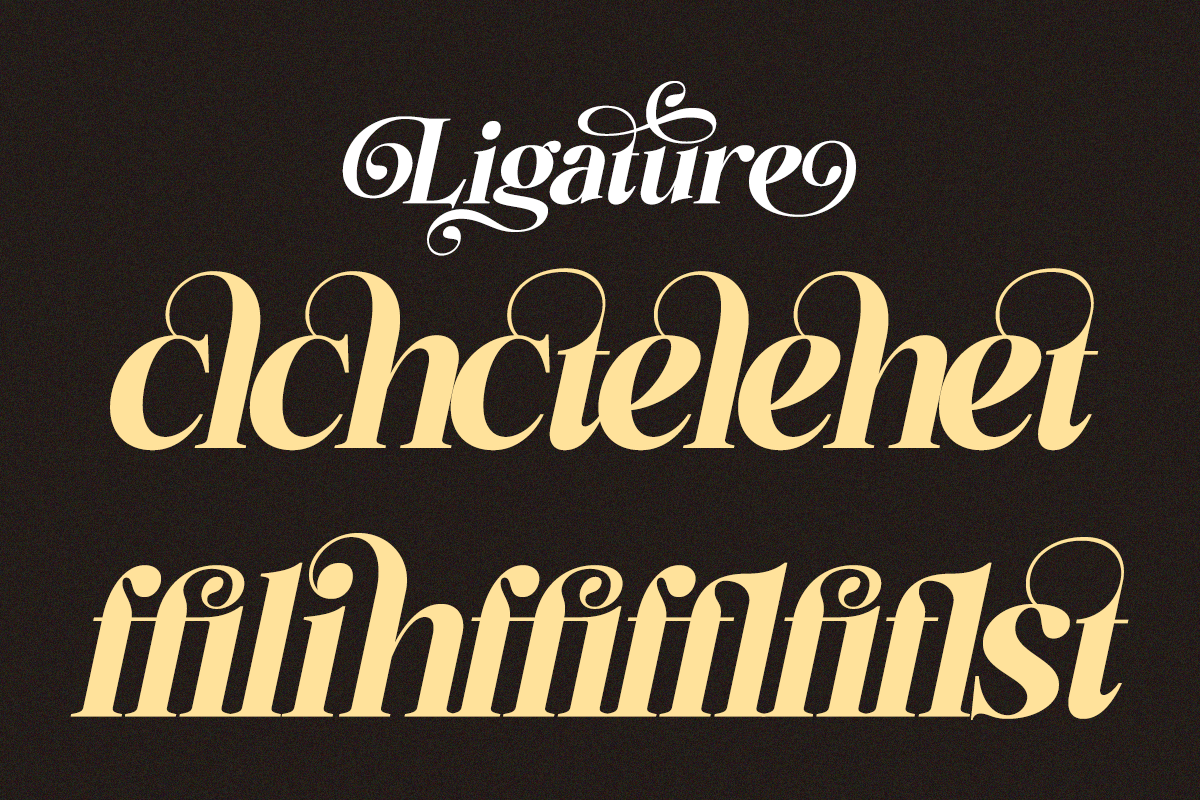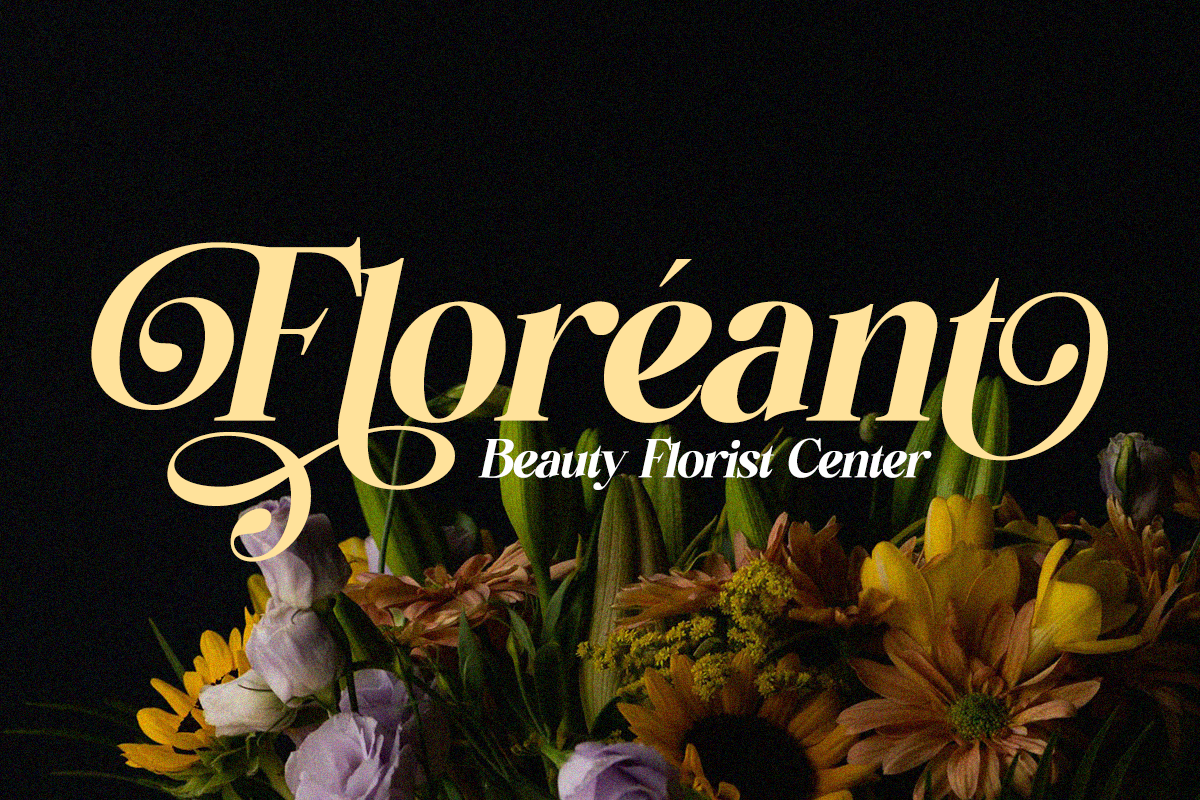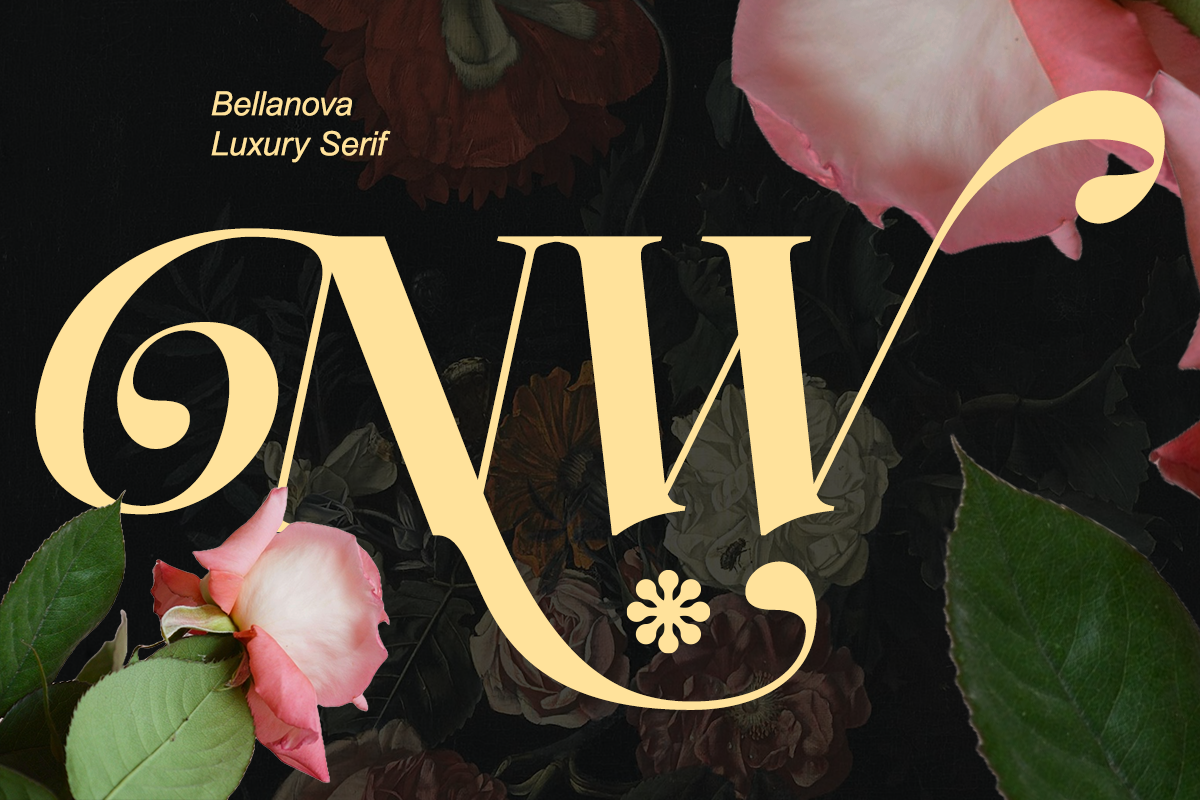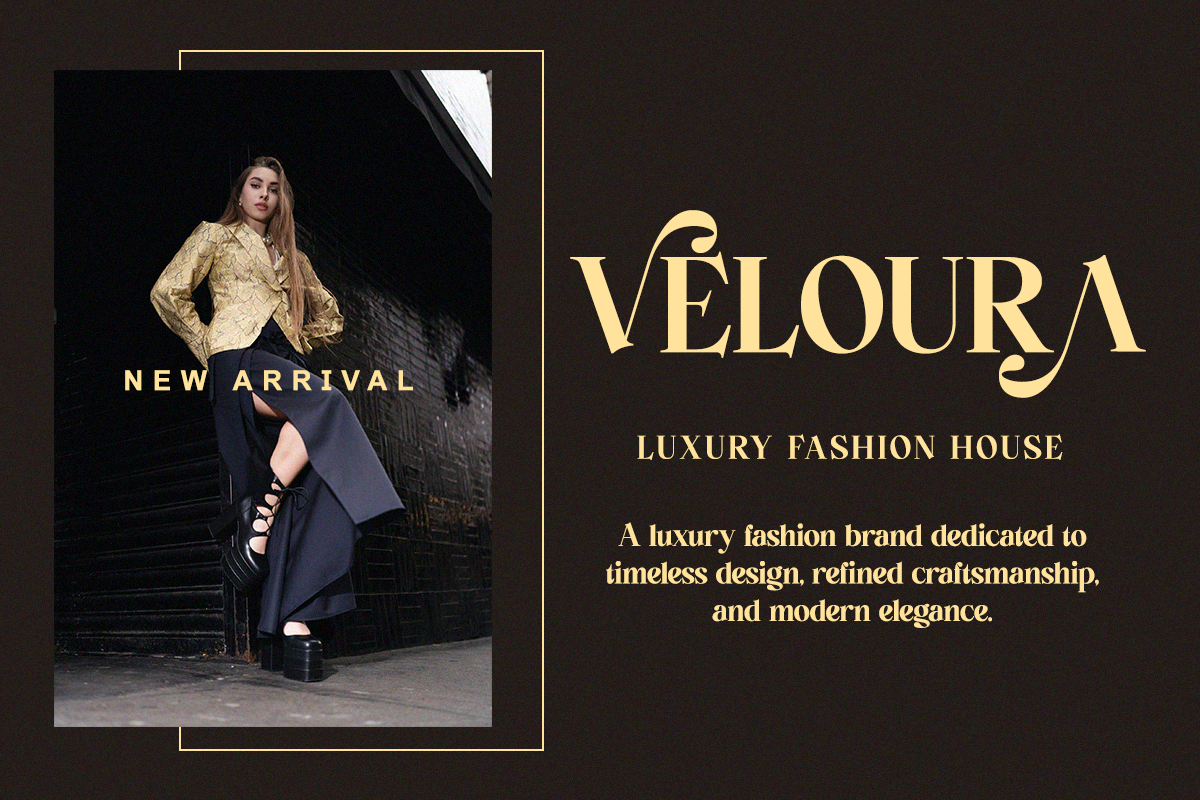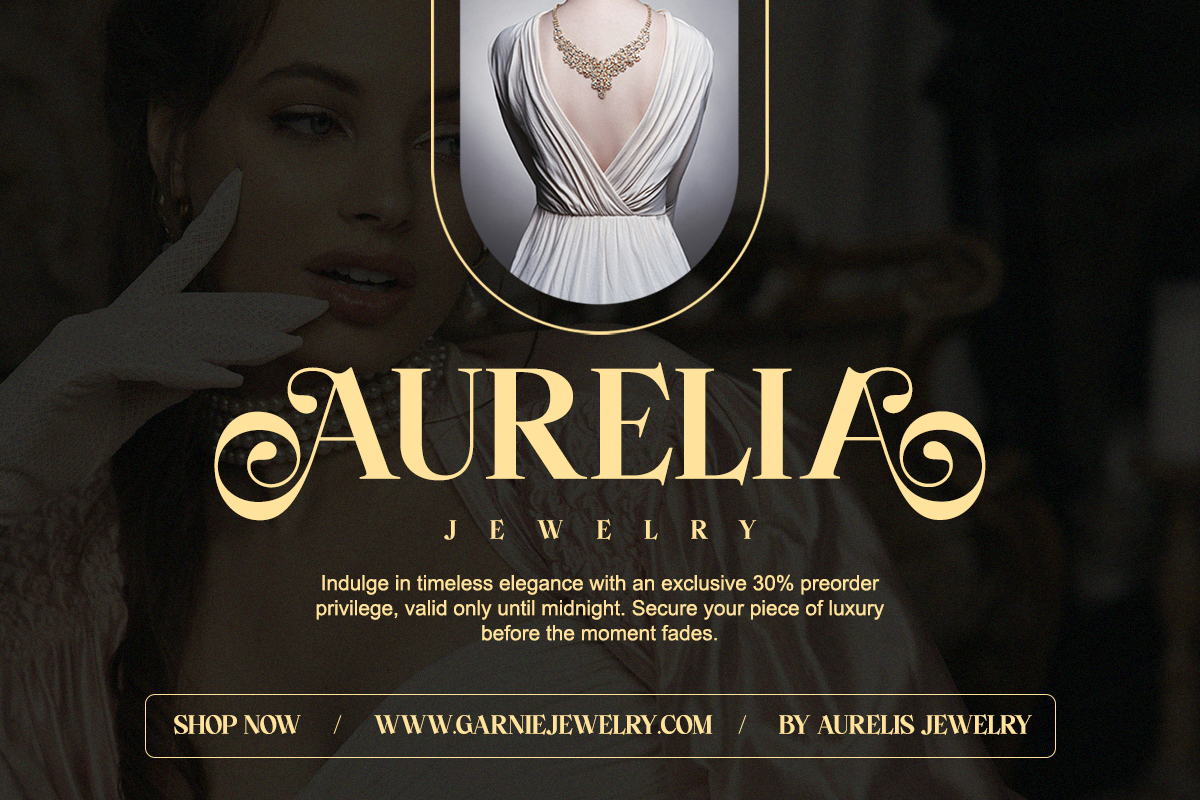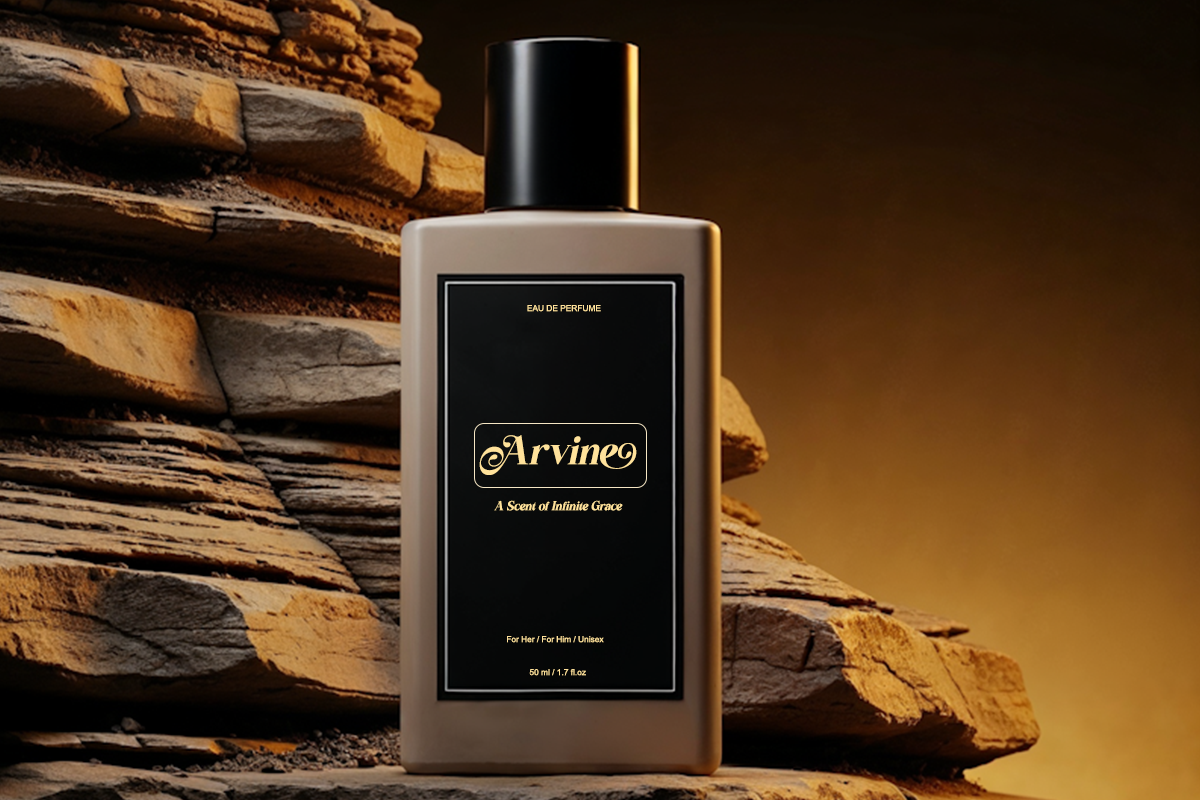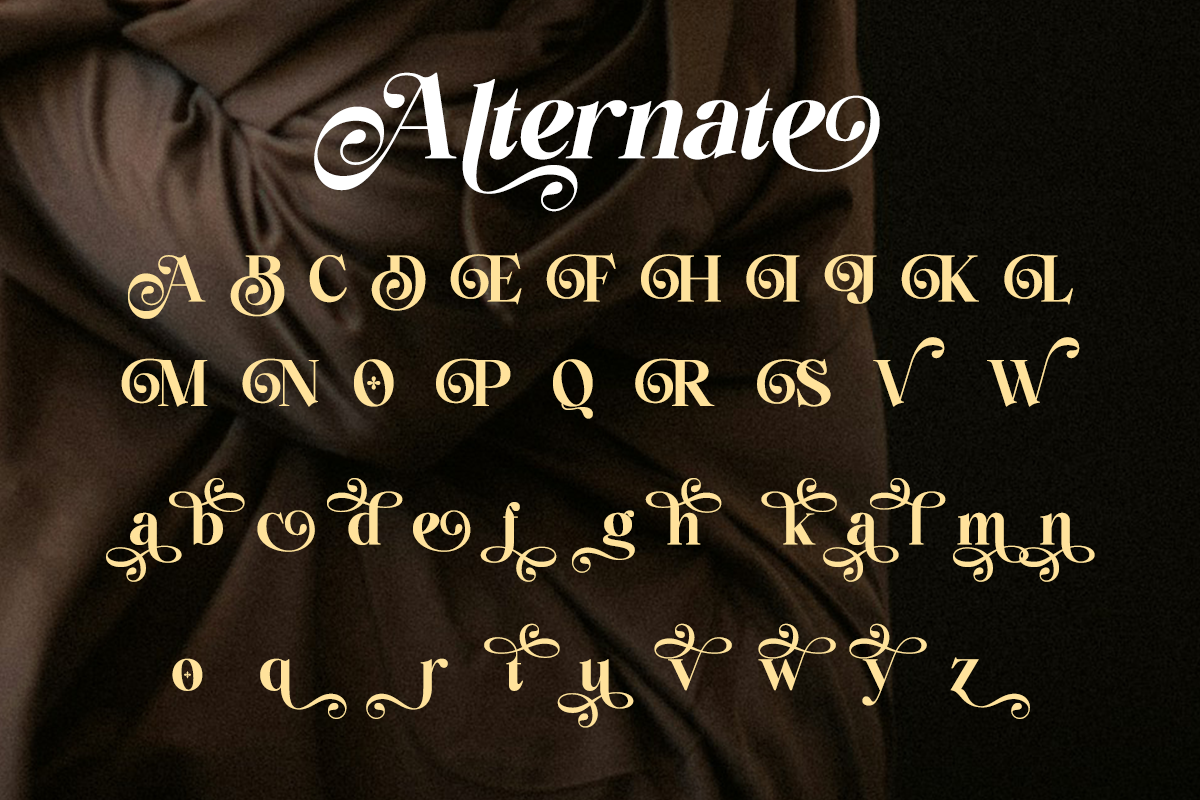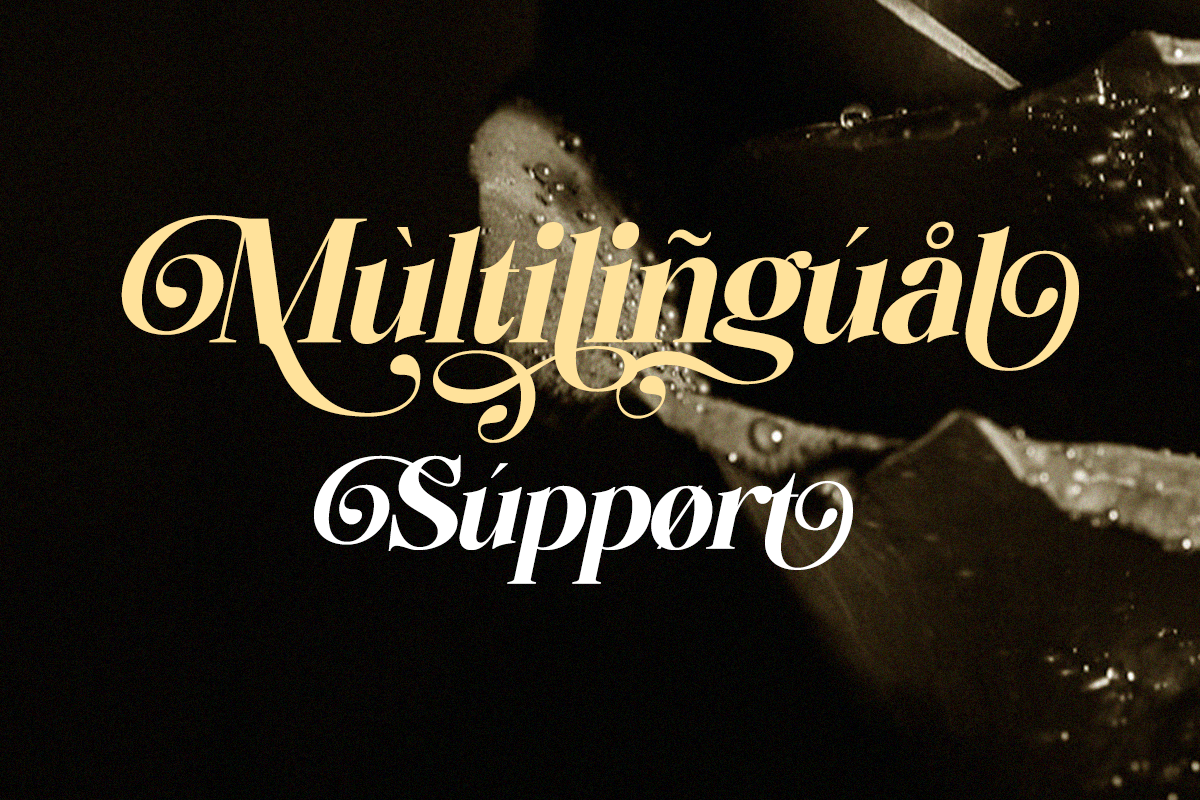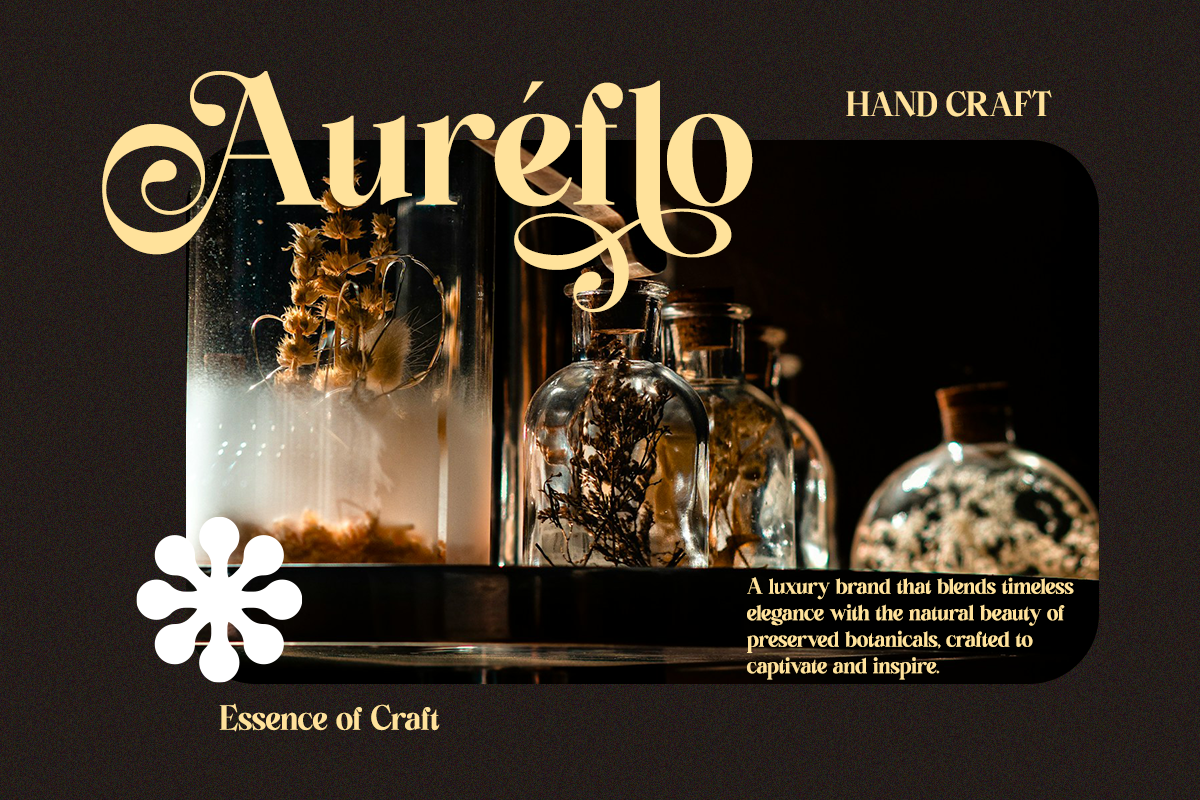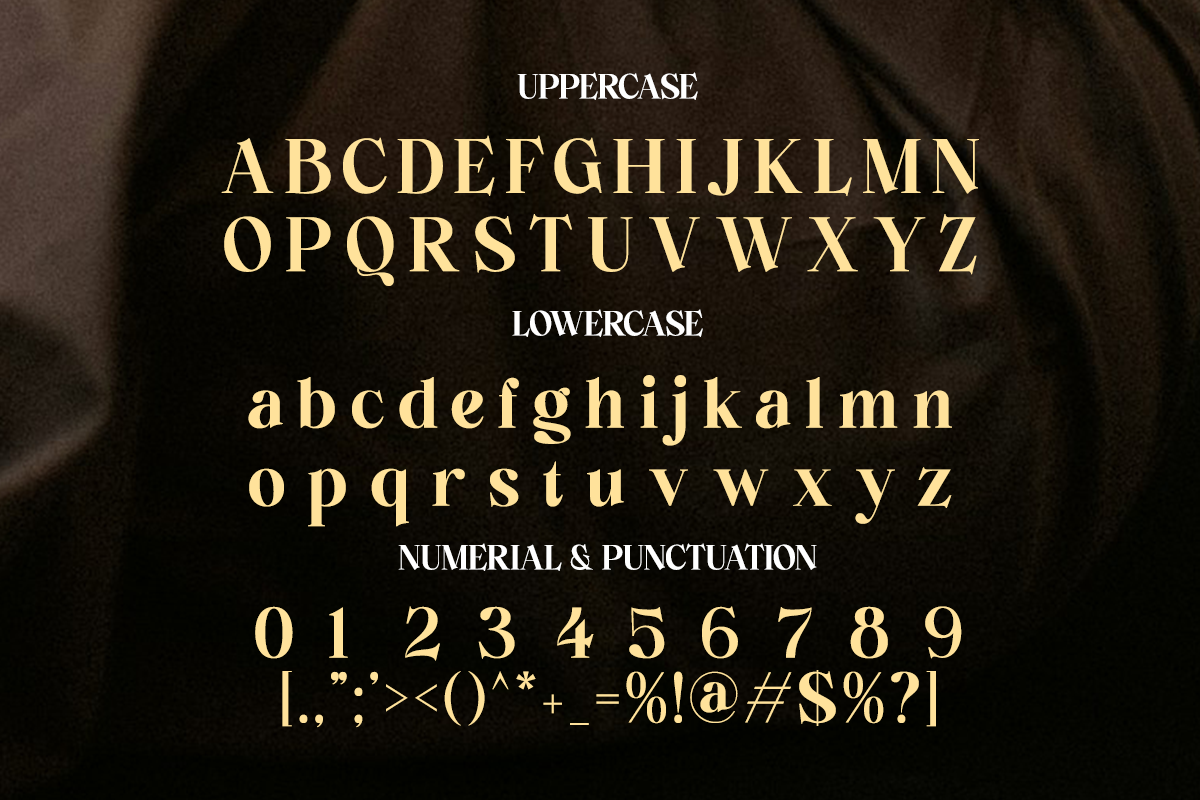
Bellanova - Elegant Luxury Serif
Introducing Bellanova, a luxury serif typeface crafted for elegance lovers. Its sweeping swashes, graceful curves, and soft vintage glamour create a powerful aesthetic ideal for upscale branding and editorial designs.
Bellanova brings a timeless sense of sophistication—perfect for fashion logos, wedding suites, perfume packaging, magazine layouts, or any design that deserves a touch of refined beauty.
- Complete uppercase & lowercase
- Beautiful swashes and ligatures
- Luxury high-contrast serif
Perfect For Fashion branding, luxury boutique logos, wedding invitations, perfume packaging, magazine titles, high-end social media templates, and beauty campaigns.